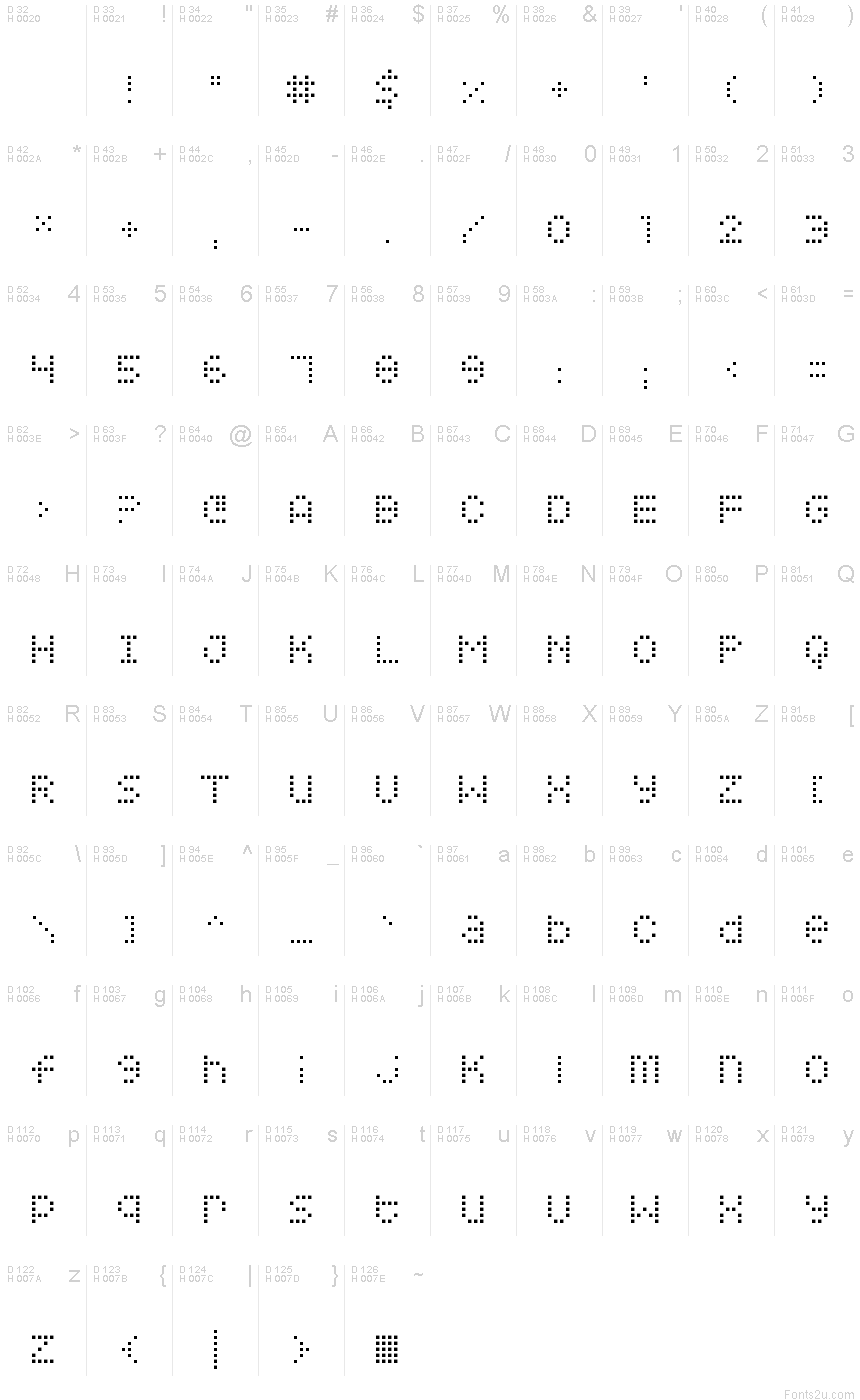
Squarodynamic 01
Squarodynamic 01 by Fontalicious is a free bitmap display font with a stripped-down dot-matrix feel. Built from evenly sized square modules, the letters land somewhere between early screen graphics and coded signage, with abrupt gaps and stepped edges that keep the rhythm crisp and a little playful.
It works well anywhere you want that low-res electronic flavor without drifting into nostalgia costume - think poster headlines, game-inspired branding, music flyers, title cards, and short UI-style labels. As a free font, it makes the most sense in brief display settings where those gridded breaks and chunky square beats can do the talking fast.